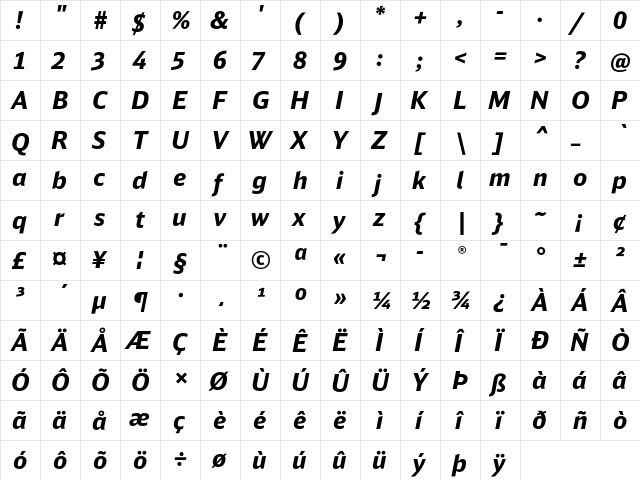
DB Sans Alternate Bold Italic Font Preview
Design Context for DB Sans Alternate Typeface
DB Sans Alternate takes a measured approach to typography — its balanced proportions and neutral character make it a reliable workhorse for both digital and print work. The dynamic lean of this cut emphasises speed and emphasis in any layout. The heavy weight commands attention and anchors typographic hierarchies.
Pro Tip: Use DB Sans Alternate for emphasis, pull quotes, and subheadings where its slanted energy can add rhythm to the layout.